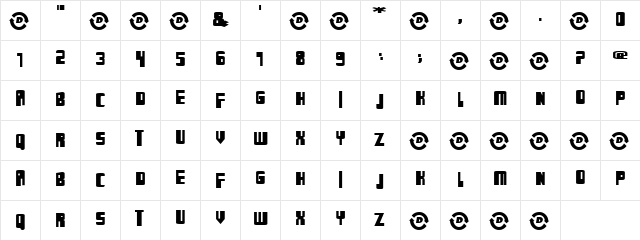
Tattooed Sailor Regular
Design Context for Tattooed Sailor Typeface
Tattooed Sailor is a composed and adaptable typeface that performs quietly and consistently across a wide range of design contexts.